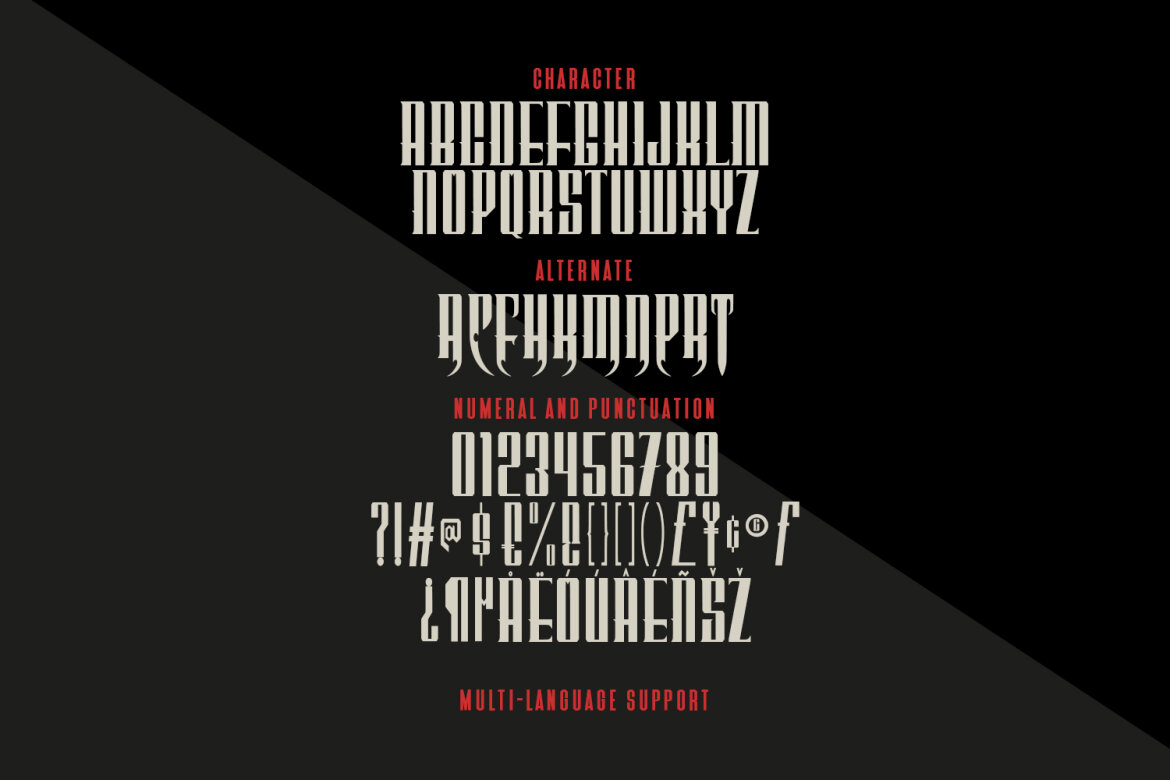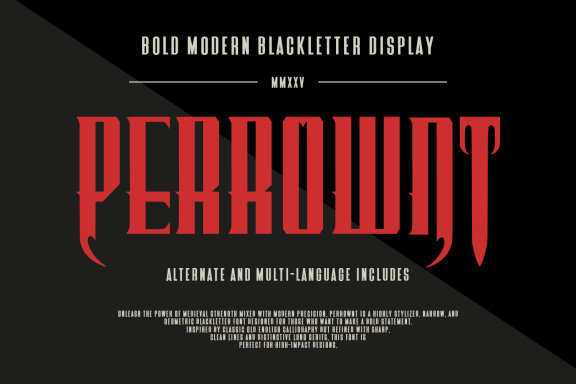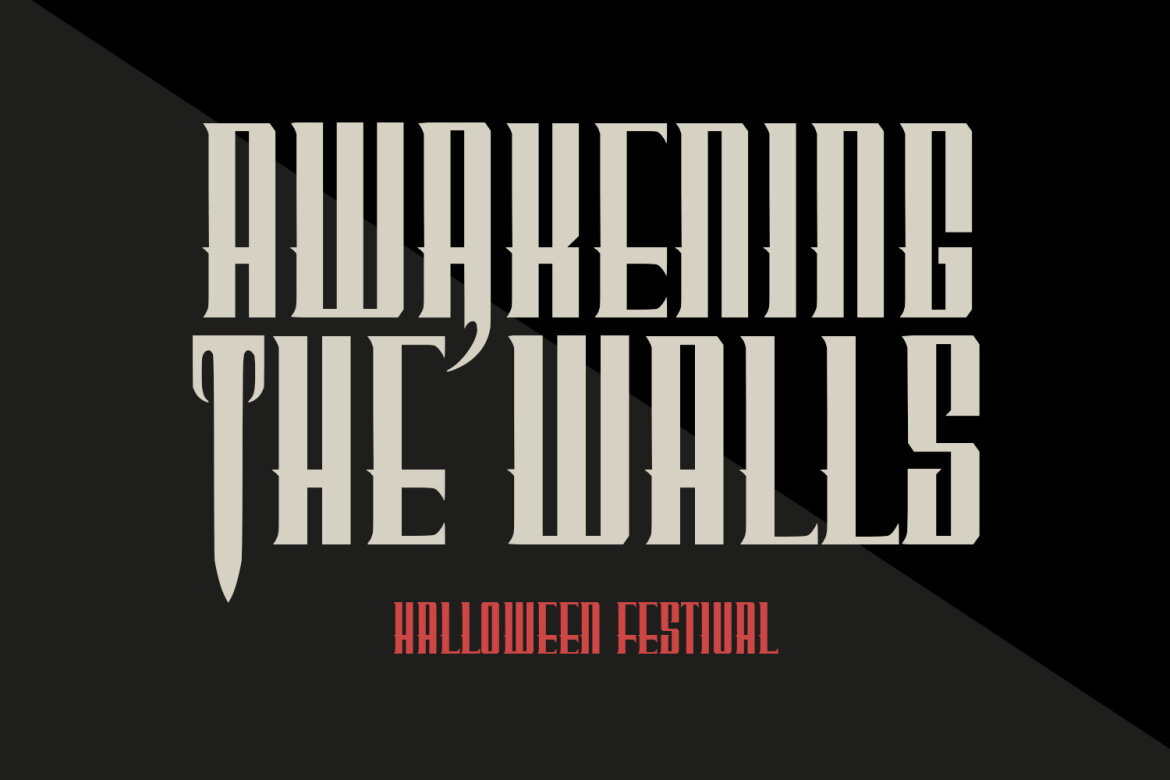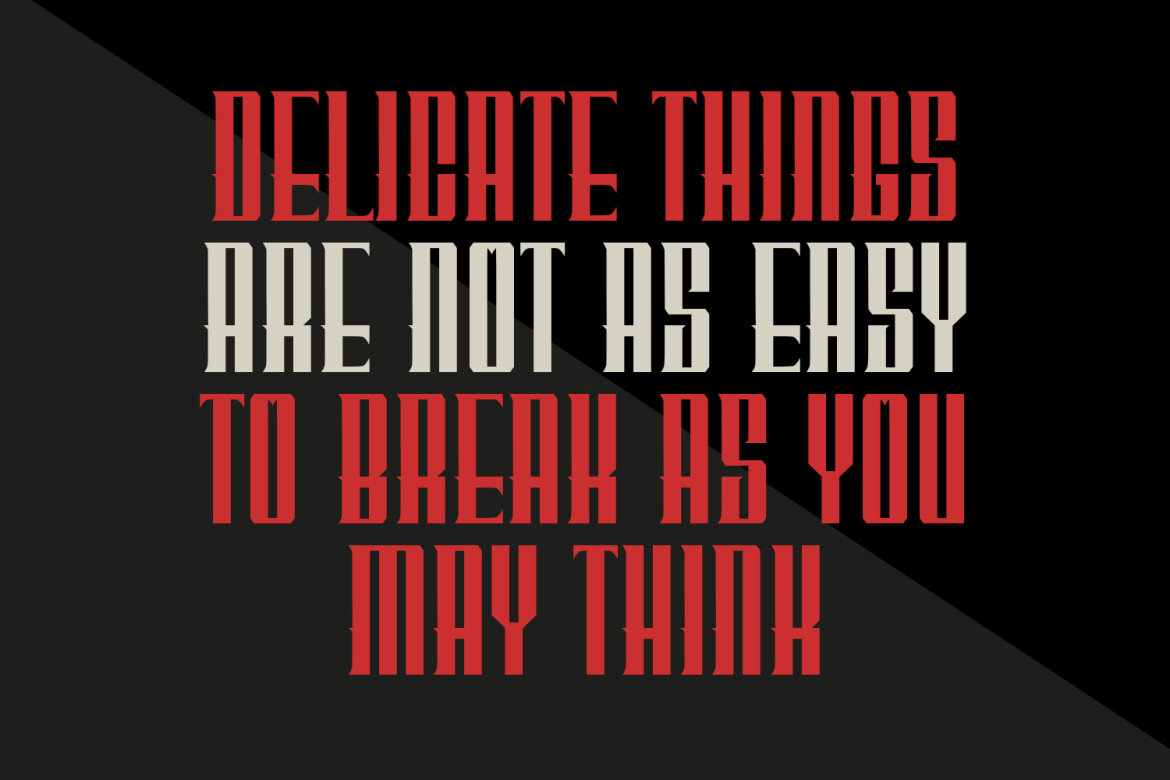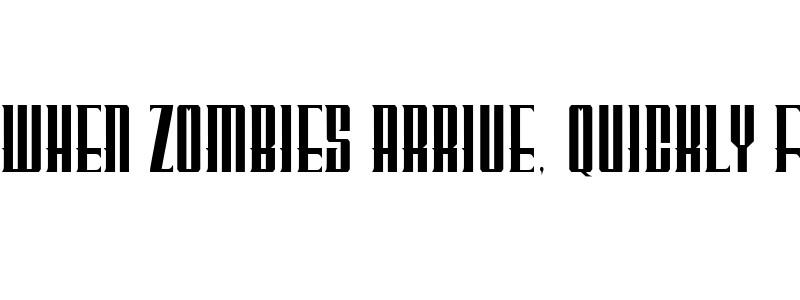
Perrownt Bold Modern Blackletter Display Font
Perrownt
Unleash the power of medieval strength mixed with modern precision. Perrownt is a highly stylized, narrow, and geometric blackletter font designed for those who want to make a bold statement. Inspired by classic Old English calligraphy but refined with sharp, clean lines and distinctive long serifs, this font is perfect for high-impact designs.
Whether you are working on a heavy metal band logo, a vintage brand, tattoo style typography, or aggressive gaming graphics, Perrownt provides a unique aesthetic that is both traditional and futuristic.